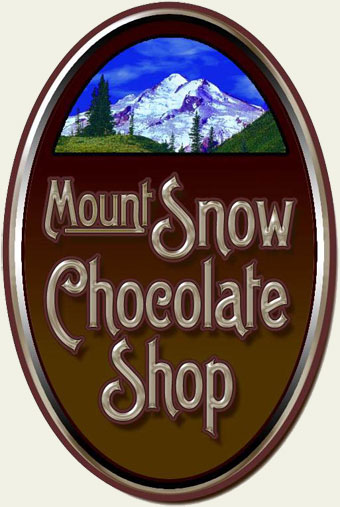
3 extraordinary typefaces inspired by period style billheads and letterheads. Each typeface is uniquely different, yet they have also been designed to interchange with one another. Try mixing 1890 uppercase with 1900 lowercase. Or 1910 uppercase with 1900 lowercase. The possibilities are endless. Alternate characters also included for each font. You might also like: Antique Shop.